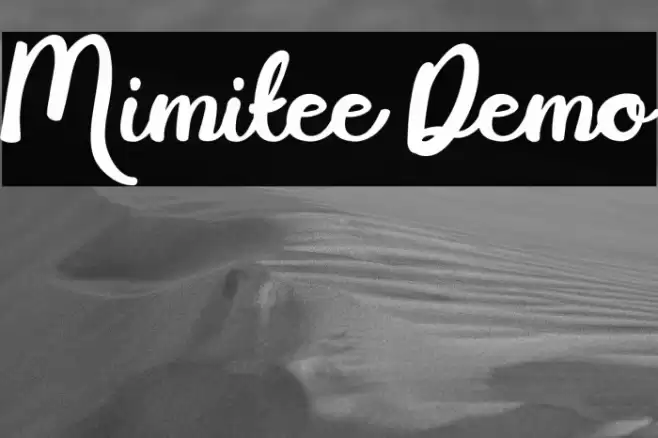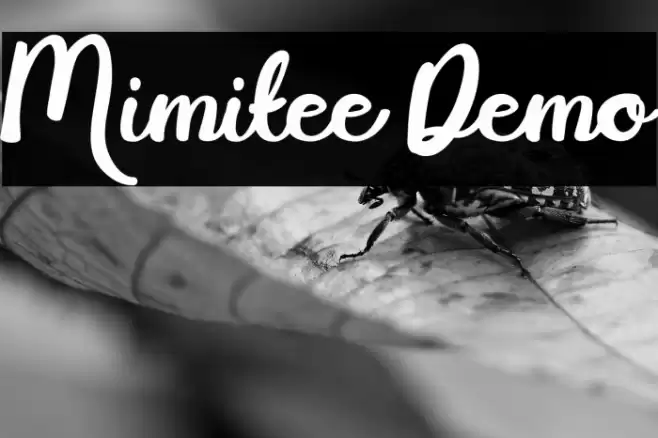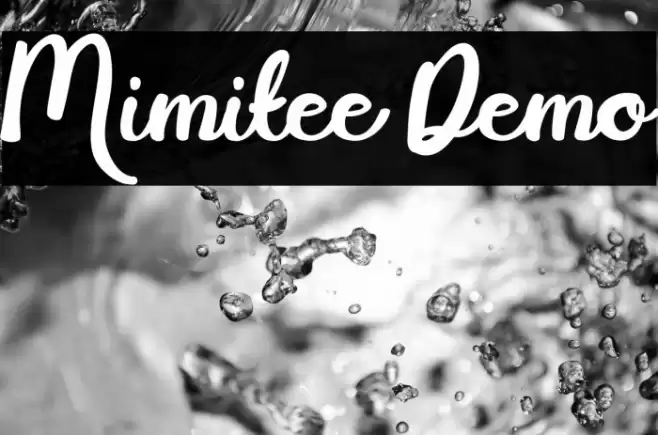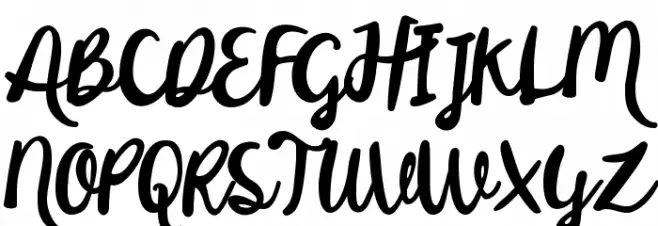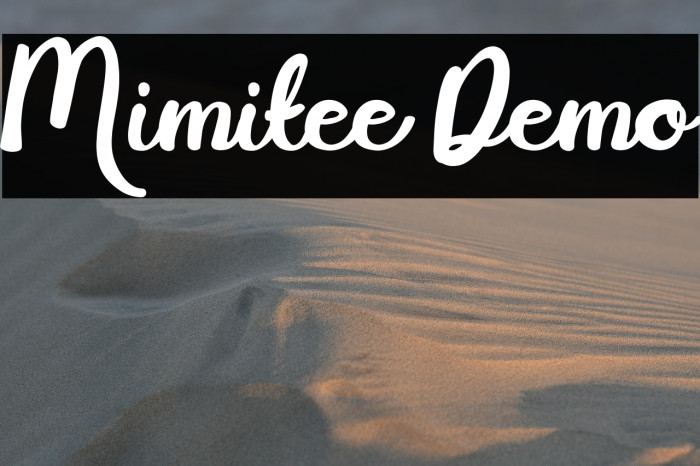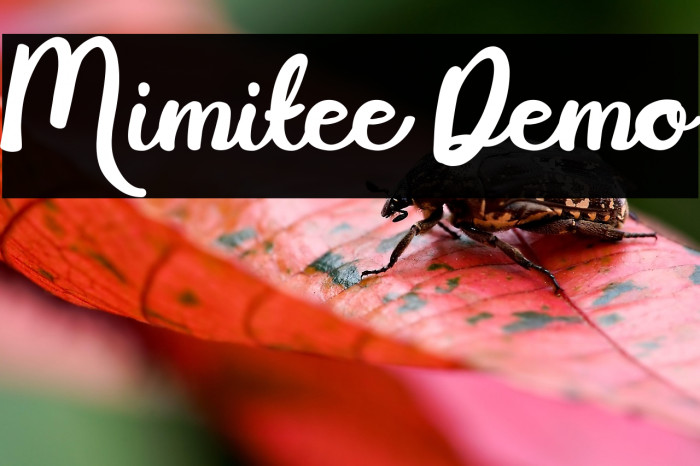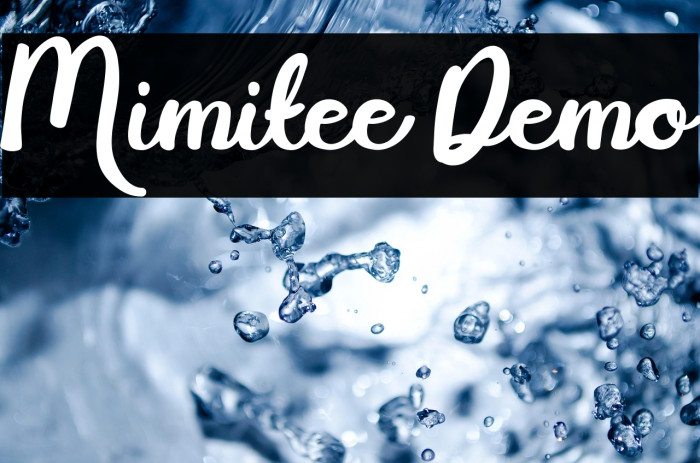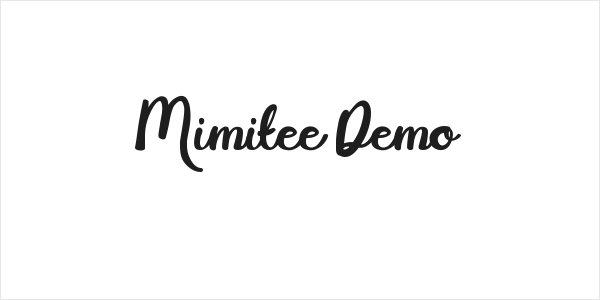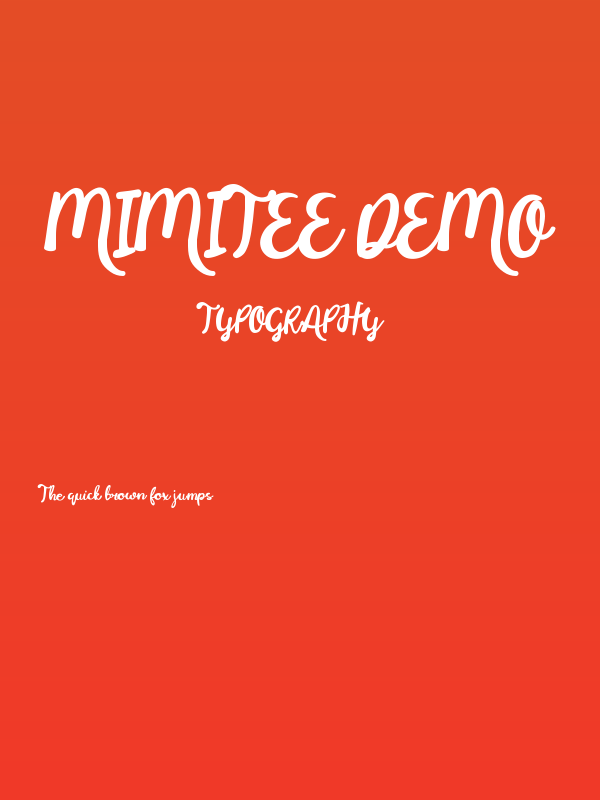
Mimitee Demo Font
Mimitee Demo Description
This font features a bold and expressive script style with a playful and artistic flair. The letters are interconnected, creating a fluid and continuous flow that mimics natural handwriting. The uppercase letters are slightly larger and more pronounced, while the lowercase letters maintain a consistent size and style. The strokes are thick and rounded, giving the font a friendly and approachable appearance. The overall design is both dynamic and elegant, making it suitable for creative and informal applications.
A bold, expressive script font with a playful, handwritten style from Regular fonts.
- Proposed Projects: Ideal for greeting cards, invitations, branding, and social media graphics.
- Character Spacing: Tight
- Use Case: Logos, Headlines, Invitations